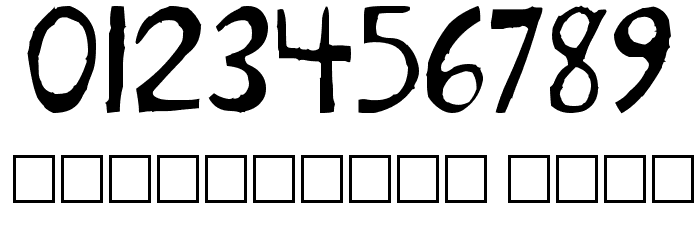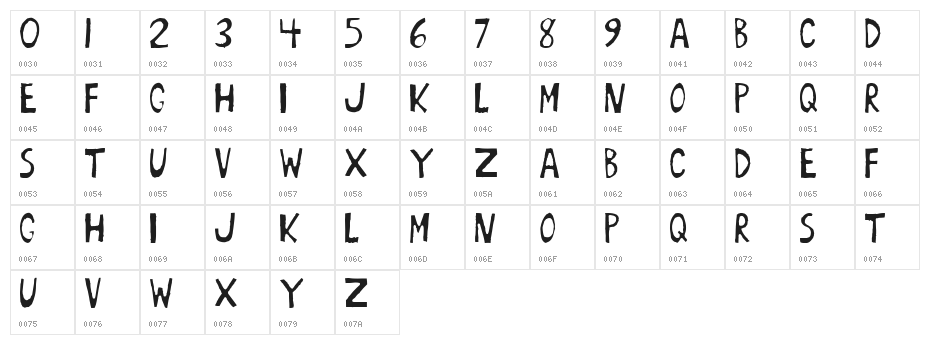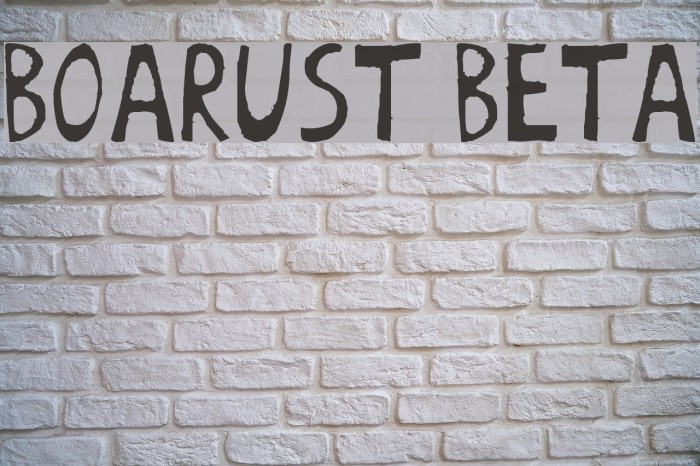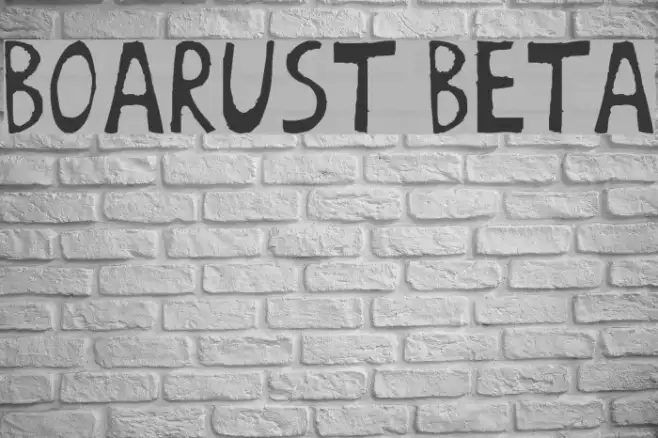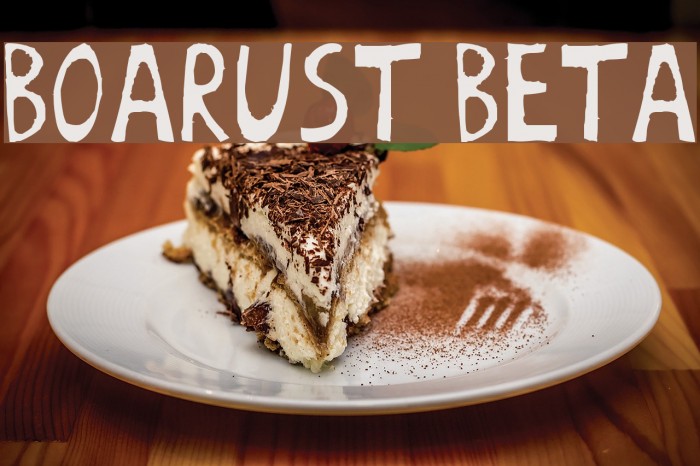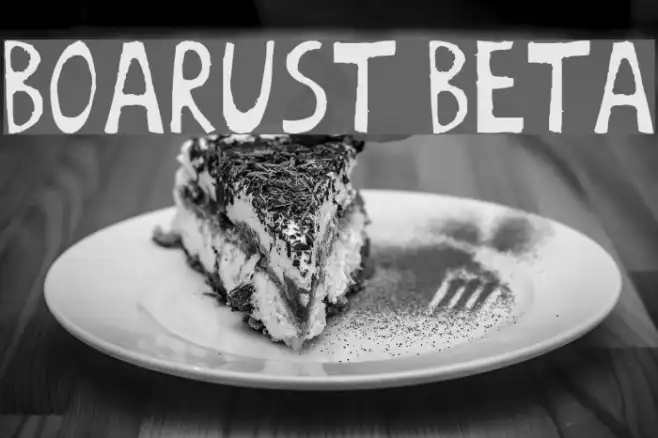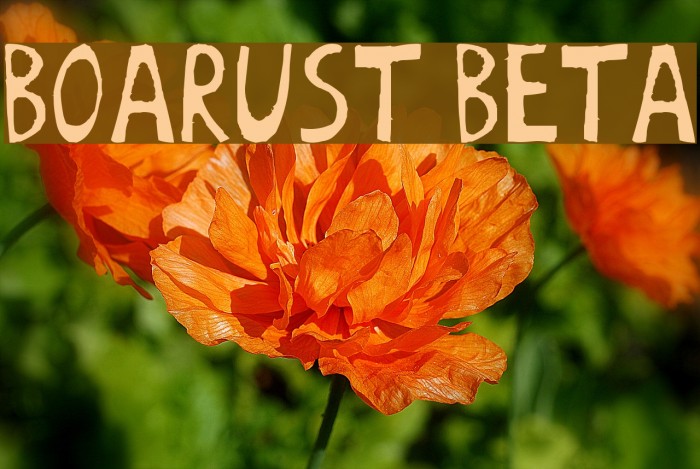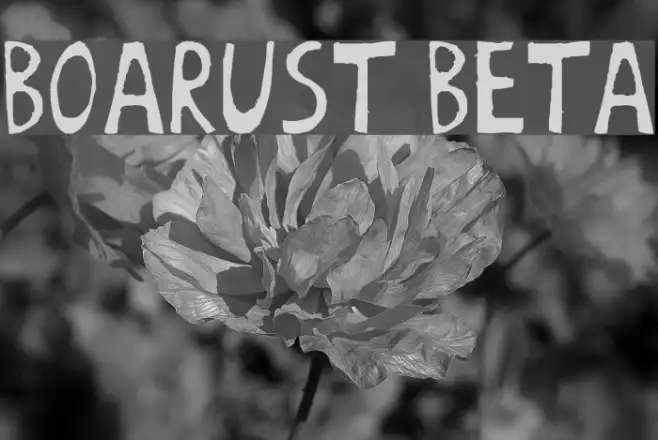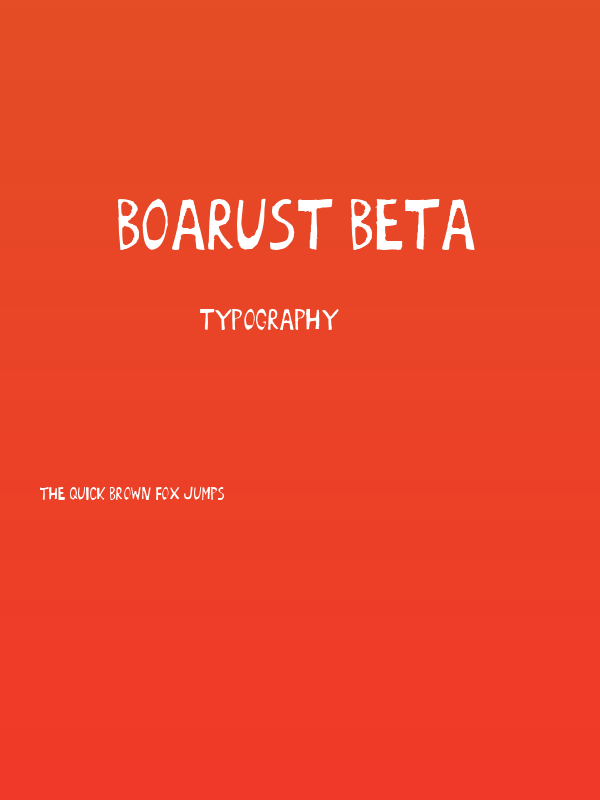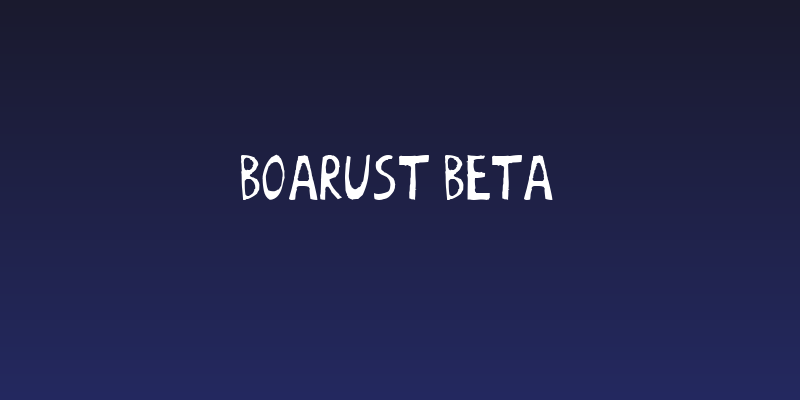
BoArust beta Font
BoArust beta Description
This font exhibits a bold and expressive style with a hand-drawn appearance. The characters are uneven and slightly irregular, giving it a rustic and artistic feel. The strokes are thick and varied, contributing to a high contrast between the thick and thin parts of the letters. The overall design is playful and dynamic, making it suitable for creative and informal projects. The uppercase and lowercase letters maintain a consistent style, while the numerals and special characters complement the alphabet with their unique, hand-crafted look.
| Proposed Projects | Ideal for posters, artistic projects, branding, and any design that requires a creative and informal touch. |